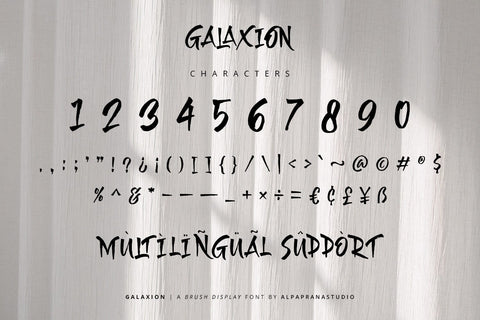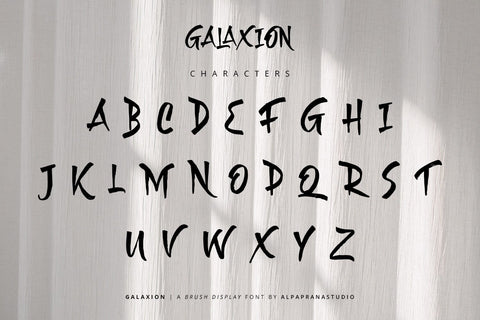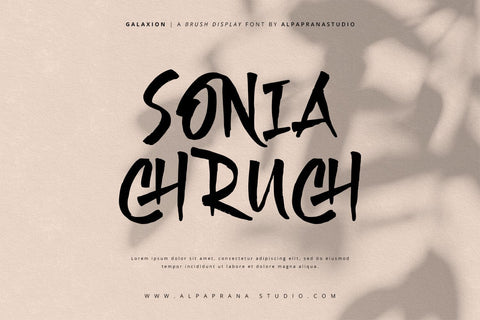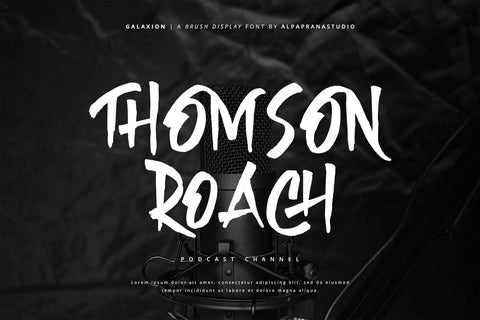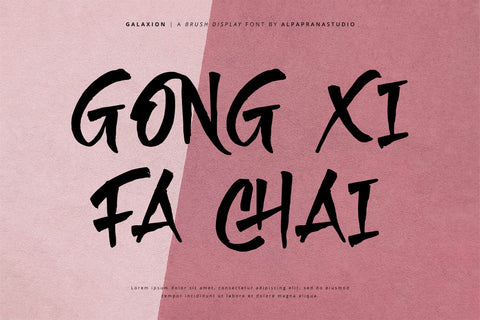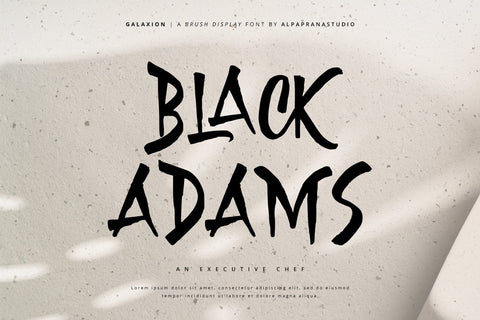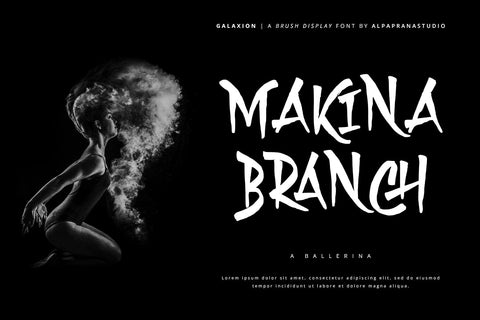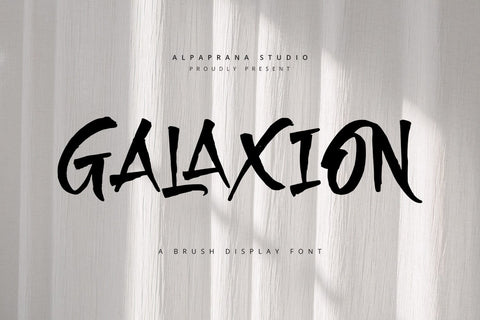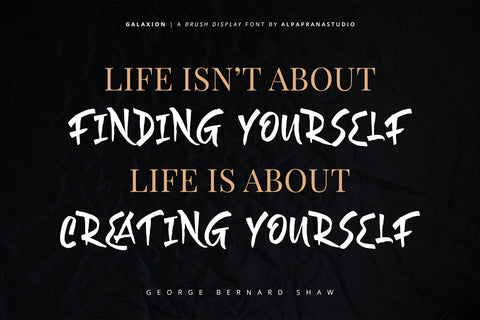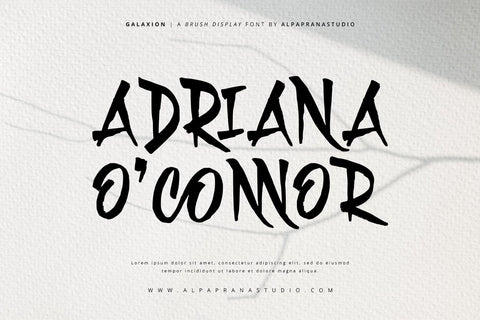
Galaxion - Brush Font
Galaxion is a brush font with natural and modern feels. It will be perfectly used for Branding, Logo Design, Lettering, Logotype, Clothing, Poster, magazine, packaging, posters, shopping bags, t-shirts, book covers, photography, special events and other design project.